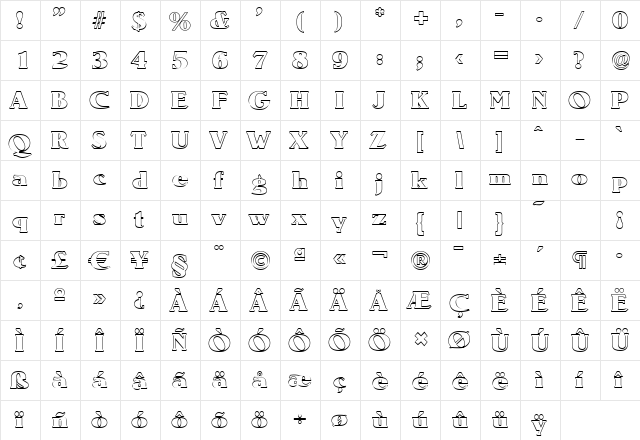
RonaldBeckerOutline-Heavy Regular
Design Context for RonaldBeckerOutline-Heavy Typeface
RonaldBeckerOutline-Heavy brings ornamental detail and strong personality to headlines and identities, where visual impact matters more than quiet functionality.
Font Pairing: Pair with a clean neutral sans-serif for body copy to let RonaldBeckerOutline-Heavy's character lead without overwhelming the composition.
Pro Tip: Use RonaldBeckerOutline-Heavy exclusively at display sizes — it was designed to be seen, not read at length. Let a neutral companion handle body copy.